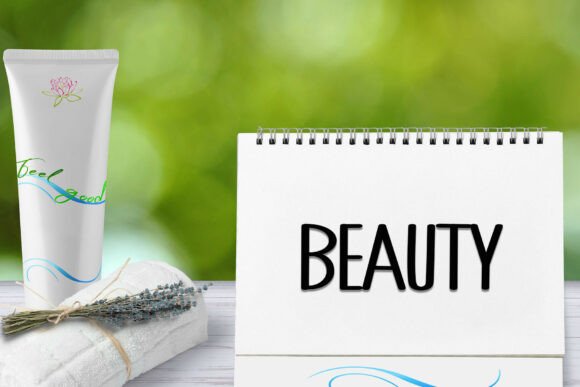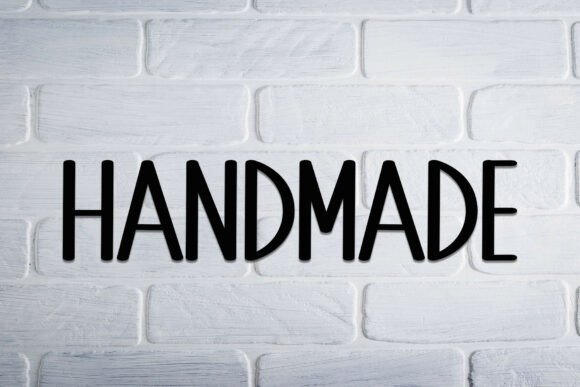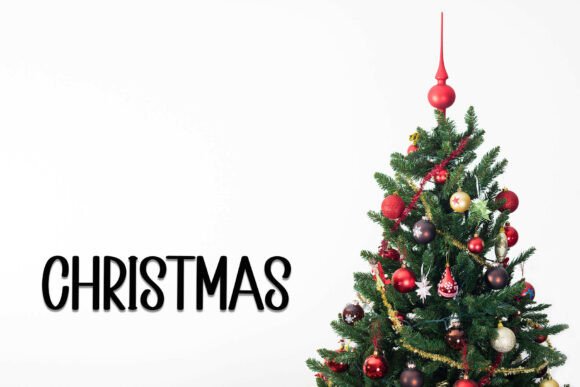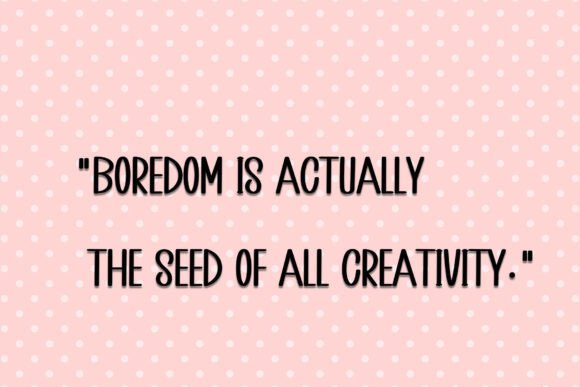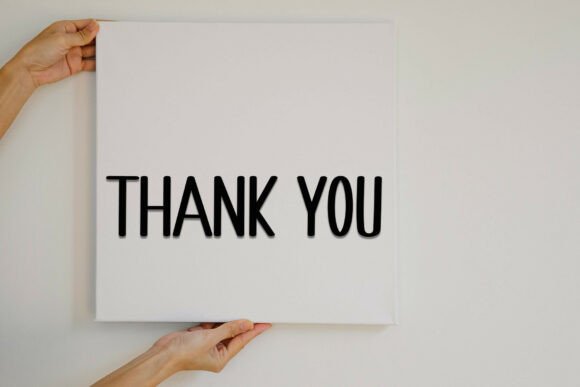
Introducing First Vintage: The Ultimate Handwritten Display Font for Creative Projects
In the world of typography, a font can make all the difference in the success of a design project. A well-crafted font can elevate your brand, capture attention, and convey your message with clarity and personality. If you’re a designer, crafter, or DIY enthusiast looking for a versatile and charming font, look no further than First Vintage. This simple handwritten display font is designed to bring character and clarity to your work, making it perfect for a wide range of creative projects.
The Characteristics of First Vintage
First Vintage boasts a clean, bold, and approachable style that is sure to captivate your audience. Its tall letterforms and rounded edges create a balanced mix of modern simplicity and playful charm, making it an excellent choice for designers who want to add a personal touch to their work. The consistent stroke weight of First Vintage ensures high legibility, while its handwritten character adds warmth and personality to your designs.
One of the standout features of First Vintage is its unique blend of modern and traditional elements. The font’s clean lines and bold structure make it perfect for headlines, logos, and titles, while its handwritten flair adds a touch of personality and whimsy. Whether you’re designing a logo, poster, or social media graphic, First Vintage is sure to make your work stand out.
Uses for First Vintage
First Vintage is an incredibly versatile font that can be used in a wide range of creative projects. Here are just a few ideas to get you started:
- Logos and Branding: First Vintage’s friendly yet professional look makes it an excellent choice for logos, business cards, and branding materials. Its unique character will help your brand stand out and establish a personal connection with your audience.
- Posters and Headlines: The font’s bold structure and clean lines make it perfect for posters, flyers, and headlines. Use First Vintage to grab attention and convey your message with clarity and impact.
- Product Packaging: Add a personal touch to your product packaging with First Vintage. The font’s playful charm and modern simplicity make it an excellent choice for product labels, tags, and packaging materials.
- Social Media Graphics: First Vintage is perfect for social media graphics, including Facebook posts, Instagram stories, and Twitter headers. Its bold and approachable style will help your content stand out in a crowded feed.
- Invitations and DIY Projects: First Vintage is also an excellent choice for invitations, DIY projects, and craft designs. Its handwritten character and playful charm make it perfect for wedding invitations, party decorations, and handmade crafts.
Why Choose First Vintage?
So why choose First Vintage over other fonts? Here are just a few reasons why designers and crafters love this font:
- Unique Character: First Vintage has a unique character that sets it apart from other fonts. Its handwritten flair and playful charm make it perfect for designers who want to add a personal touch to their work.
- High Legibility: The font’s consistent stroke weight and clean lines ensure high legibility, even at small sizes.
- Versatility: First Vintage is an incredibly versatile font that can be used in a wide range of creative projects, from logos and branding to social media graphics and DIY projects.
- Timeless Design: First Vintage has a timeless design that will never go out of style. Its classic elements and modern simplicity make it a font that will remain relevant for years to come.
In conclusion, First Vintage is a simple handwritten display font that is perfect for designers, crafters, and DIY enthusiasts who want to add character and clarity to their work. Its unique blend of modern simplicity and playful charm makes it an excellent choice for a wide range of creative projects, from logos and branding to social media graphics and DIY projects. With its high legibility, versatility, and timeless design, First Vintage is a font that will help you bring your creative vision to life.